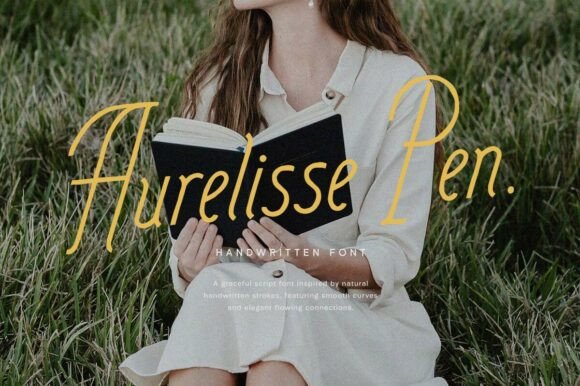
Aurelisse Pen Font: The Epitome of Elegance and Refinement
In the world of typography, few fonts manage to convey the perfect blend of elegance, refinement, and personality. Aurelisse Pen Font is one such exceptional typeface that has captured the hearts of designers and crafters alike. With its smooth, flowing strokes and gentle confidence, Aurelisse Pen moves like a quiet signature on a calm day—smooth, graceful, and effortlessly refined.
The Characteristics of Aurelisse Pen Font
The strokes of Aurelisse Pen Font flow with a soft, airy quality that feels natural and effortless. This is achieved through the perfect blend of soft curves and clean connections that provide clarity without compromising on aesthetics. The font carries a subtle elegance with a relaxed handwritten touch, making every word feel personal yet polished. This unique combination makes Aurelisse Pen Font an ideal choice for projects that demand a touch of sophistication and warmth.
Why Designers Love Aurelisse Pen Font
Designers often find themselves in search of fonts that can add a personal touch to their creations without sacrificing professionalism. Aurelisse Pen Font fits the bill perfectly. Its smooth, flowing strokes and gentle confidence make it an excellent choice for a wide range of design projects, from wedding invitations and branding materials to blog posts and social media graphics.
One of the key reasons designers love Aurelisse Pen Font is its versatility. It can be used in both digital and print projects, and its legibility ensures that the message is conveyed clearly, regardless of the medium. Moreover, the font’s subtle elegance and relaxed handwritten touch add a layer of sophistication and warmth to any design, making it more engaging and relatable.
Aurelisse Pen Font in Crafting and DIY Projects
Crafters and DIY enthusiasts also find Aurelisse Pen Font to be a valuable asset in their creative endeavors. Whether it’s journaling, scrapbooking, or creating handmade cards, this font adds a touch of elegance and refinement to any project. The personal yet polished feel of Aurelisse Pen Font makes it perfect for adding quotes, captions, or journal entries to crafts.
Moreover, the font’s smooth, flowing strokes and gentle confidence make it an excellent choice for creating custom signs, wall art, and other decorative items. With Aurelisse Pen Font, crafters can add a professional touch to their DIY projects, making them stand out from the crowd.
Tips for Using Aurelisse Pen Font Effectively
To make the most of Aurelisse Pen Font, here are a few tips to keep in mind:
- Pair it with complementary fonts: Aurelisse Pen Font pairs well with clean, sans-serif fonts that provide a nice contrast to its elegant, cursive strokes.
- Use it for headings and titles: The font’s smooth, flowing strokes and gentle confidence make it perfect for headings and titles, adding a touch of sophistication and elegance to any design.
- Experiment with colors and textures: Aurelisse Pen Font looks great in a variety of colors and textures. Experiment with different options to find the one that best suits your design or crafting project.
Aurelisse Pen Font is a truly exceptional typeface that offers the perfect blend of elegance, refinement, and personality. Its smooth, flowing strokes and gentle confidence make it an excellent choice for designers and crafters looking to add a touch of sophistication and warmth to their creations. Whether it’s used in digital or print projects, Aurelisse Pen Font is sure to make a lasting impression.